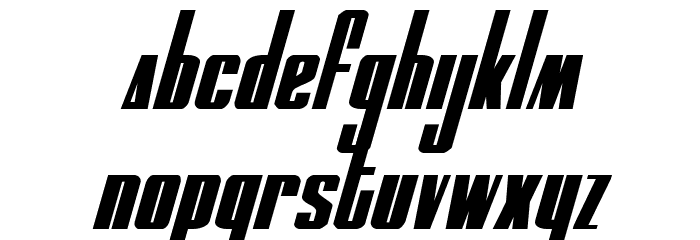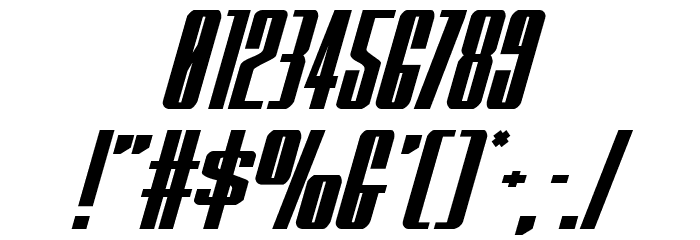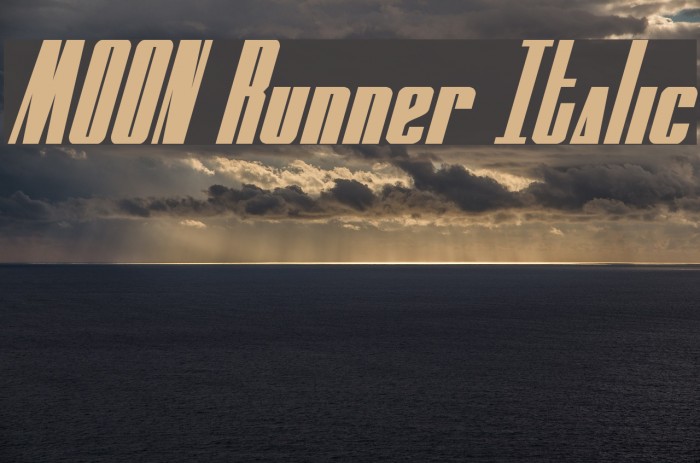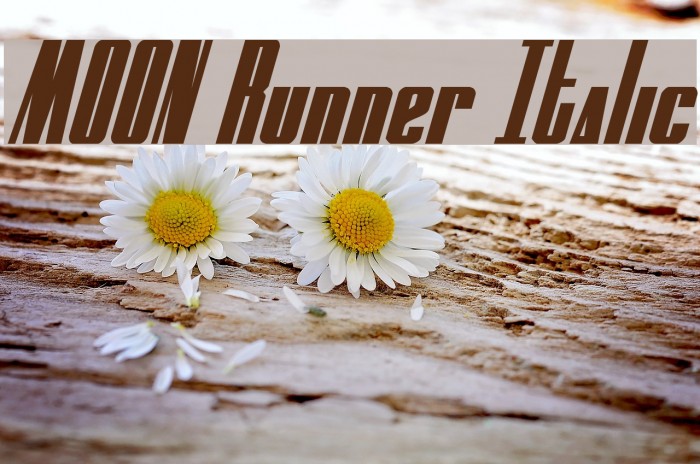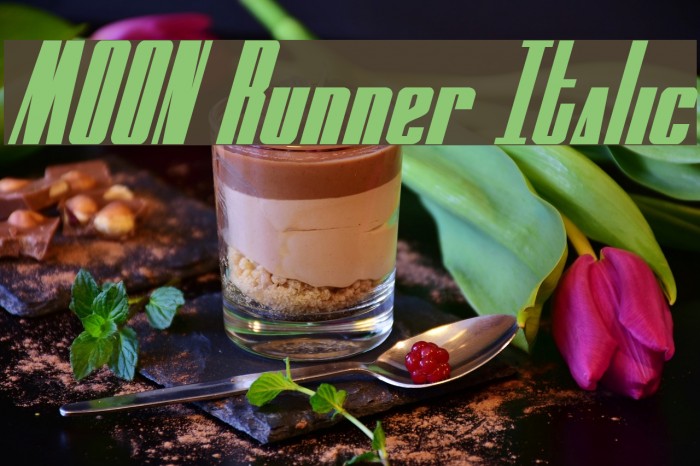
MOON Runner Italic Font
This font features a bold and dynamic italic style, characterized by its sharp, angular lines and a forward-leaning posture that conveys a sense of speed and motion. The uppercase and lowercase letters maintain a consistent slant, enhancing the overall sleek and modern appearance. The numerals and special characters are designed to match the energetic style, with a bold presence that ensures readability. The font's condensed width allows for efficient use of space, making it ideal for impactful headlines and titles. Its high contrast in stroke thickness adds to the dramatic effect, while the tight character spacing ensures a cohesive and compact look.
A bold, italic font with sharp angles and a dynamic, modern style.
- Proposed Projects: Ideal for sports branding, dynamic posters, futuristic designs, and automotive advertisements.
- Character Spacing: Tight